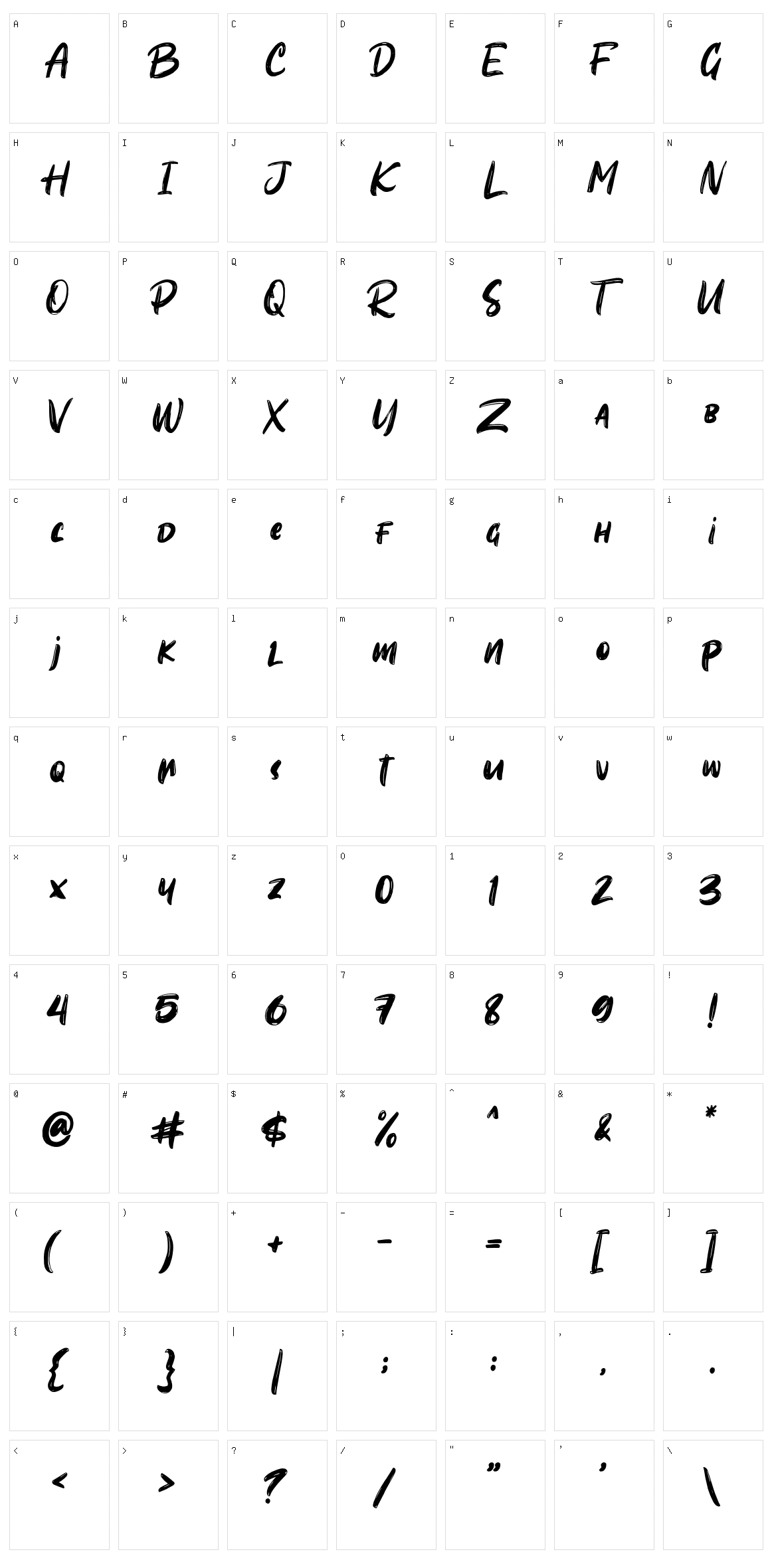
The free font Sombori is carefully designed by Ndhietwentytwo Font, showcasing a thoughtful balance of creativity and usability and falls under the Script font style. When you download the ZIP file, it contains only 175.83 KB of font files, making it lightweight and quick to download. Please review the license details below to understand permitted usage and distribution rights. If license information is not available, we recommend using this font for personal projects only or contacting the author directly for commercial usage permissions.